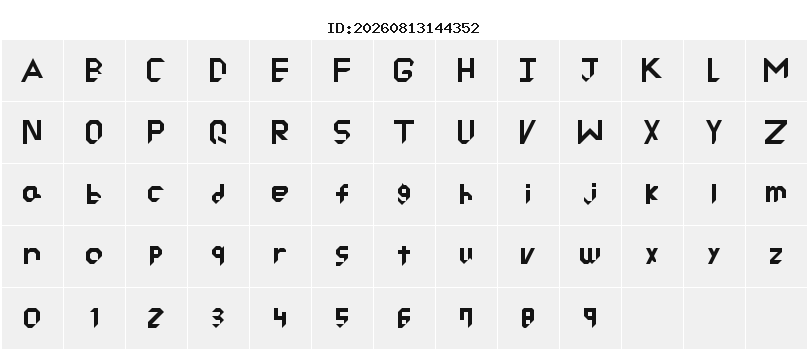
• Font Name: RYU Cutted
• Designer: yuhrt
• Description: “RYU Cutted” was built with FontStruct
About RYU Cutted.ttf
RYU Cutted.ttf is a modern, elegant sans-serif font designed for ultimate readability and visual harmony. Perfect for branding, headlines, web design, and print materials.